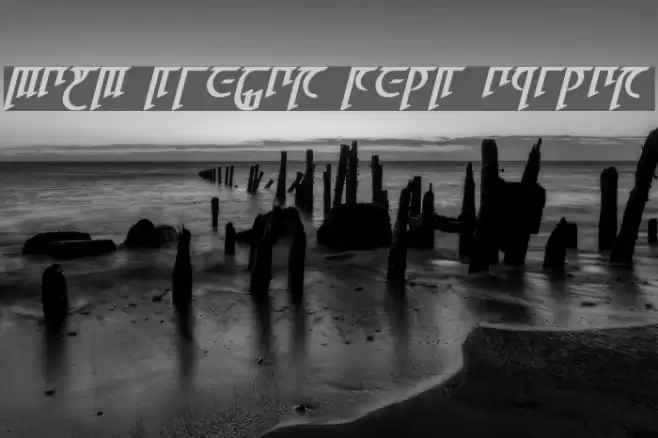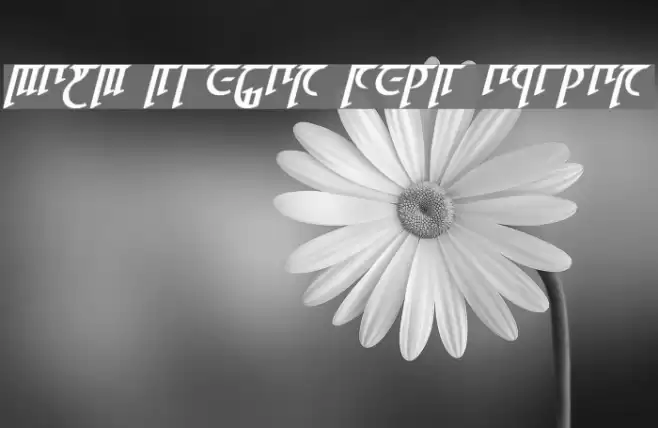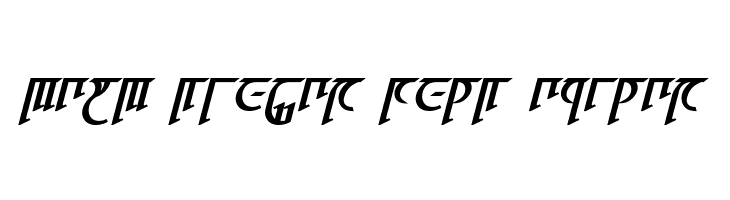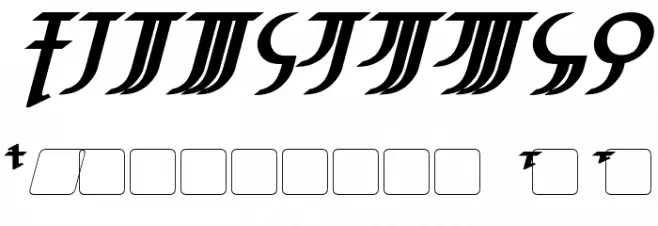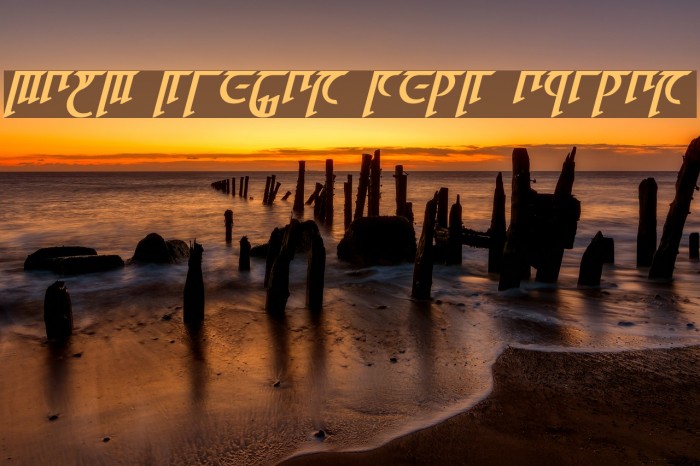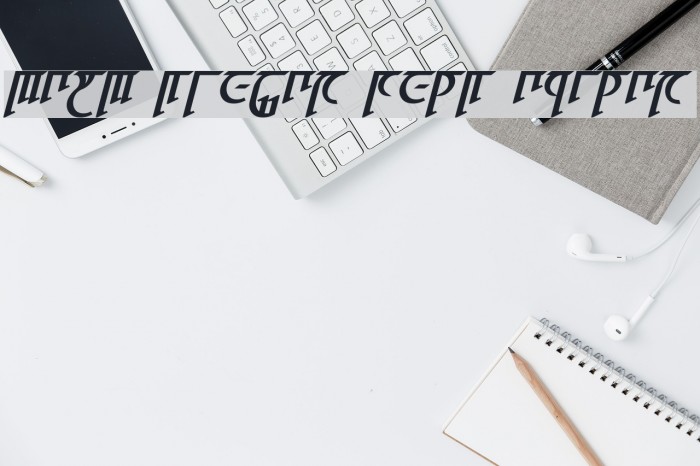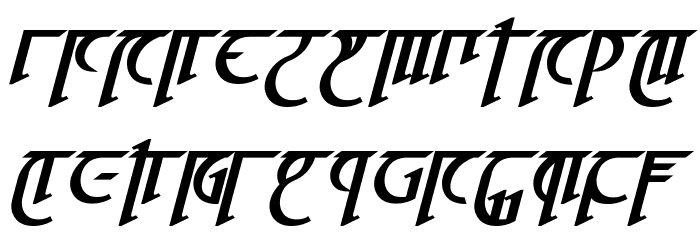
High Drowic Bold Italic Font
High Drowic Bold Italic Description
This font features a bold and italicized style with a distinctive, angular design. The characters exhibit a high level of contrast with thick, dramatic strokes and sharp edges, giving it a dynamic and aggressive appearance. The slanted orientation of the letters adds a sense of movement and energy, making it stand out in any design. The uppercase and lowercase letters maintain a consistent style, while the numerals and special characters are designed to complement the overall aesthetic. This font is particularly suited for projects that require a strong visual impact.
A bold, italicized font with angular, high-contrast strokes and a dynamic style from Uncategorized fonts.